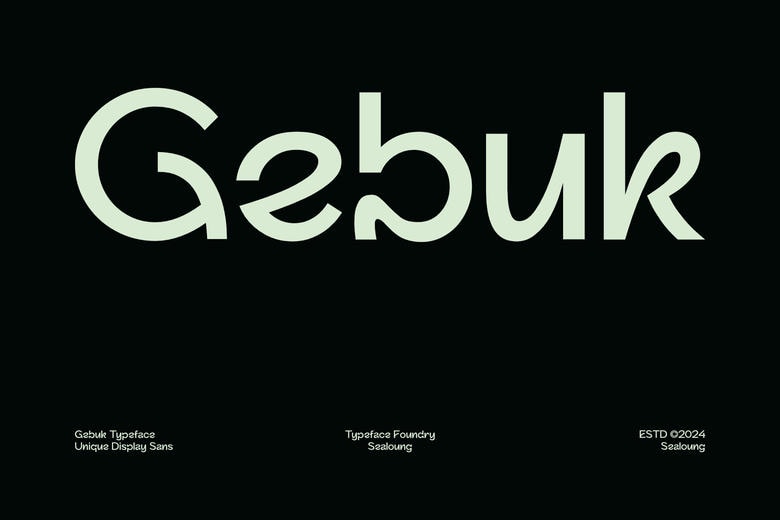
Gebuk is a bold and distinctive display sans font, designed to make a statement. Gebuk with its neat lines and powerful personality is ideal in giving your design projects a clean and unique look. This font has a strong graphic effect whether you are creating posters, branding, packaging or digital media.
Its heavy but minimalist typefaces offer a bold but legible look, so it is the perfect match to eye-catching headline, logo, and advertising texts.
Gebuk Sans Serif Font